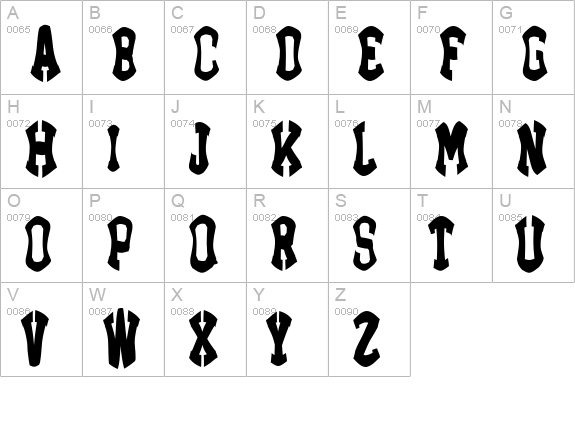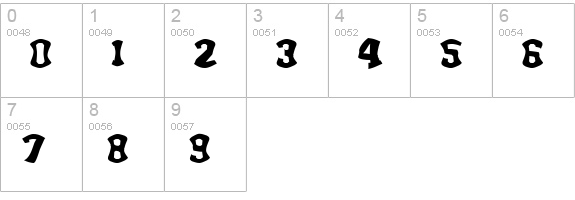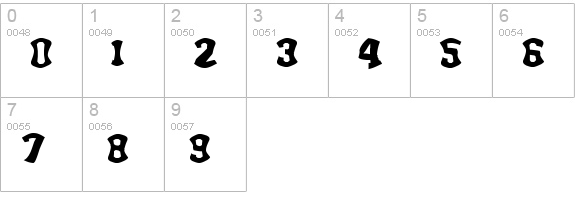
BlueMirth font is a stunning display typeface that embodies elegance and sophistication. With its graceful curves and bold presence, BlueMirth exudes a sense of modernity and style. This versatile font is perfect for a wide range of design projects, from branding to editorial work. What sets BlueMirth font apart is not only its striking appearance but also its accessibility. This font is available for free download at FontsMarket.com, making it easy for designers and creatives to incorporate this beautiful typeface into their work without any barriers. Whether you're working on a logo, poster, or website design, BlueMirth font will add a touch of class and flair to your projects. Don't miss out on the opportunity to enhance your designs with BlueMirth font. Download it for free today and elevate your creative work to new heights.